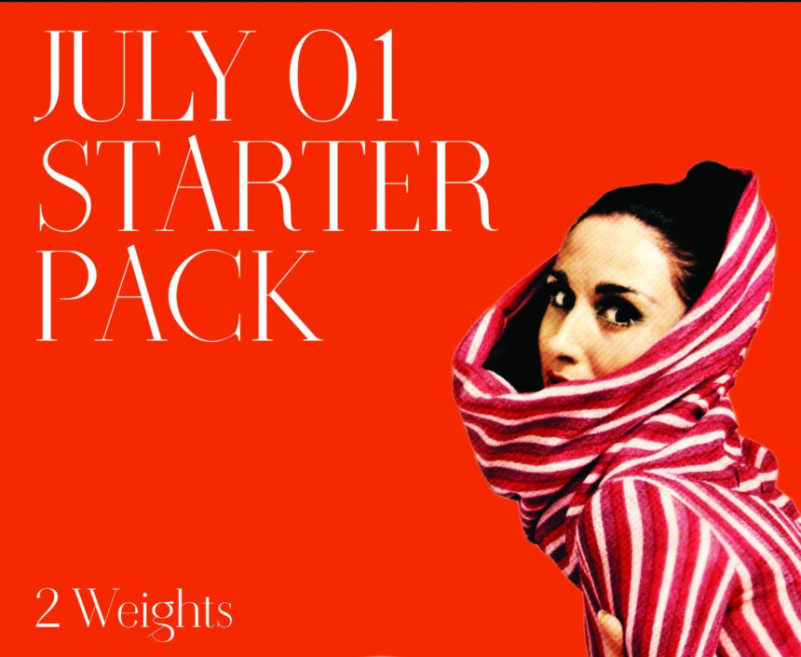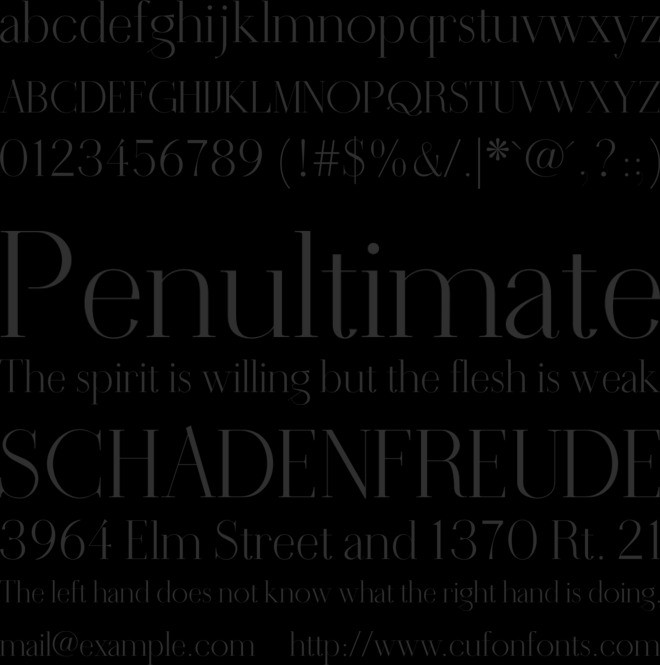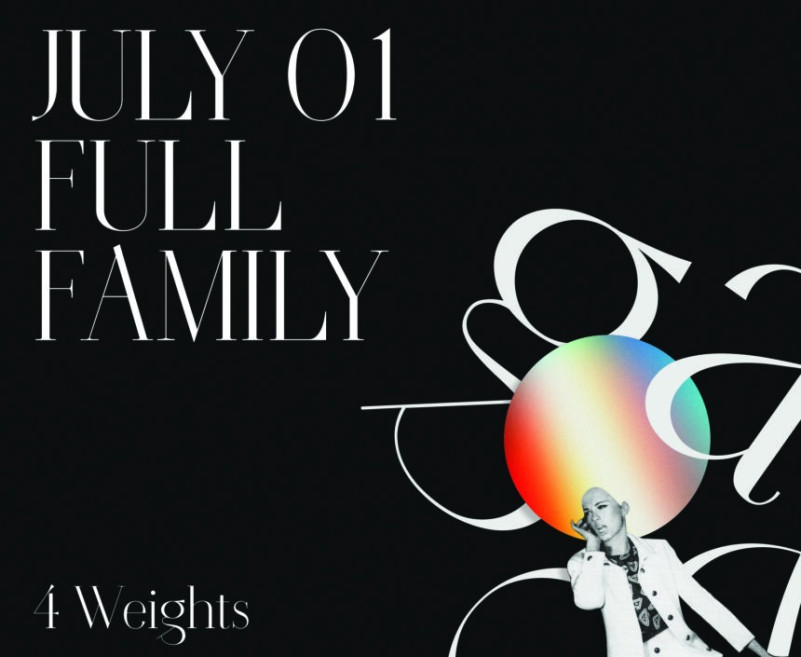
July 01 Font
Introducing July 01 Serif Font, began to come to life in late 2020, when Danilo DeMarco began designing the first letters that would make upthe monogram F + D, to be used in his wedding visual. Ittook Danilo more than a year and a half to complete thefont and all four of its weights.
July 01 is a font with a vintage style, but at the same time it looks extremely modern. The strong constat between vertical and horizontal rods makes it fit into the Bodonian family. Although many of its letters have a more condensed style, others are a bit wider, all for greater contrast. Many of the letters that make up the font have a distinctive design that gives the font character, making it distinguishable from other similar fonts.
July 01 is a purely graphic font, ideal for making artwork or for use in titles or subtitles within websites or printed magazines. The strong contrast of its constituent parts make it not very usable for small texts, nevertheless its use is not excluded for the composition of not excessively small texts if well balanced.
Danilo decided to name the font July 01 because it is the date of his wedding, which took place on July 1, 2022.